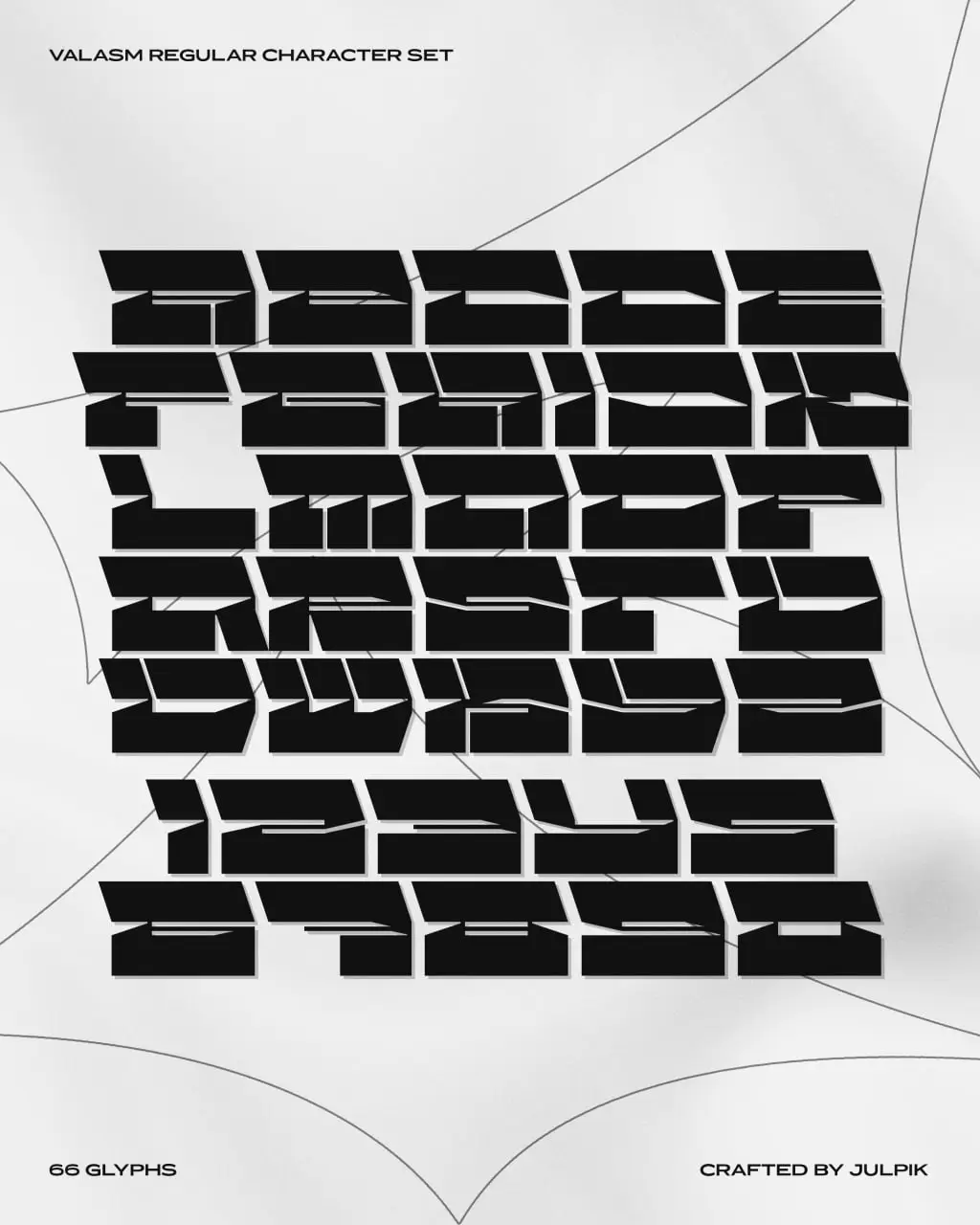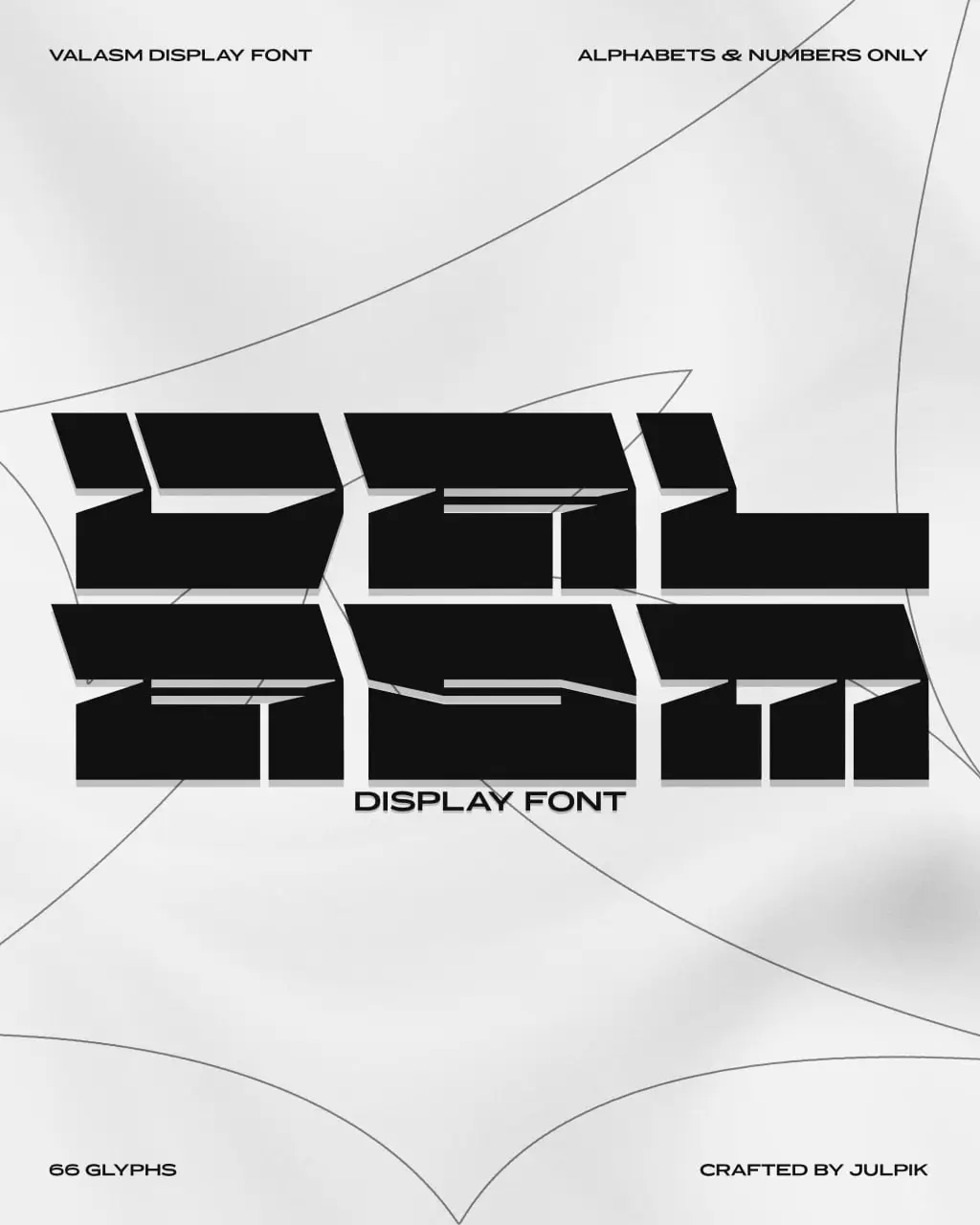
Valasm Display Font Demo By Julpik
The Valasm Display Font is a striking typeface designed to capture attention and elevate your designs. Created by Julpik, this demo version showcases the unique character and style of the font, making it perfect for a variety of applications.
• Bold and eye-catching display style
• Uppercase letters, numbers, and punctuation included
• Unique character design that stands out
• Weight: Regular
This font is ideal for branding, logos, posters, and any project that requires a bold statement. Use it to create captivating headlines or to add a distinctive flair to your designs.